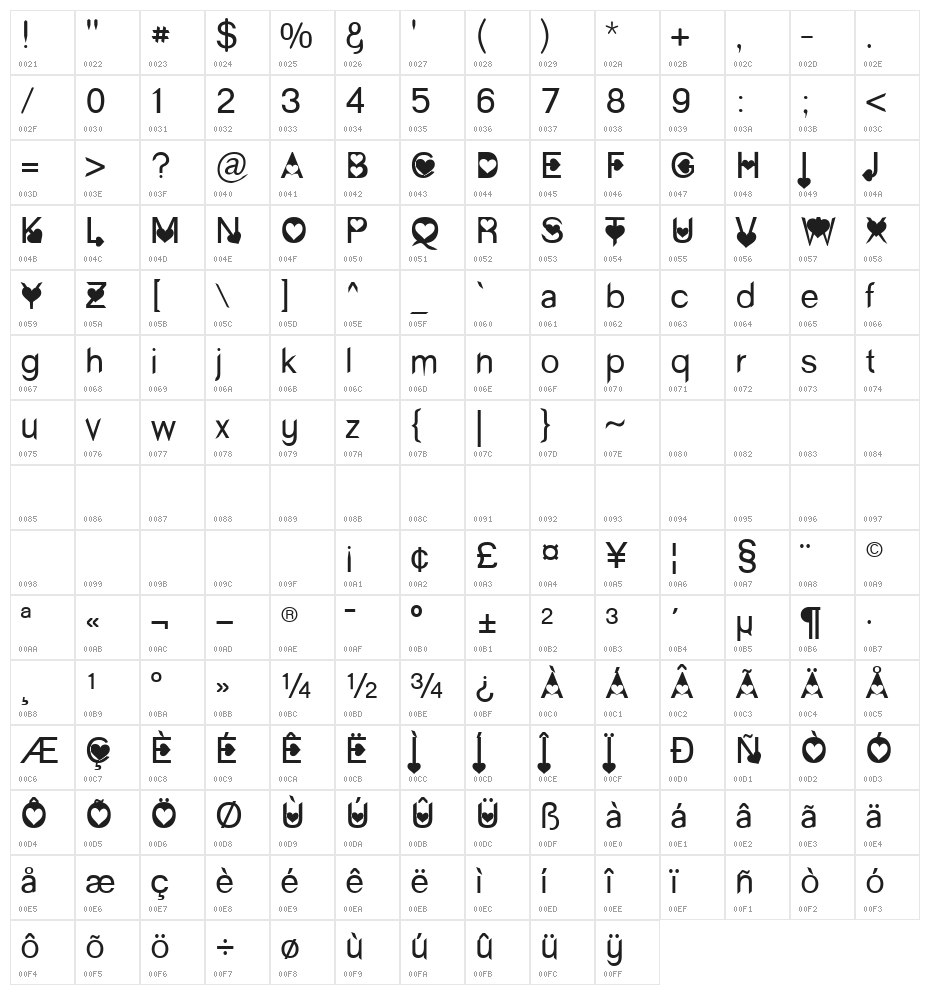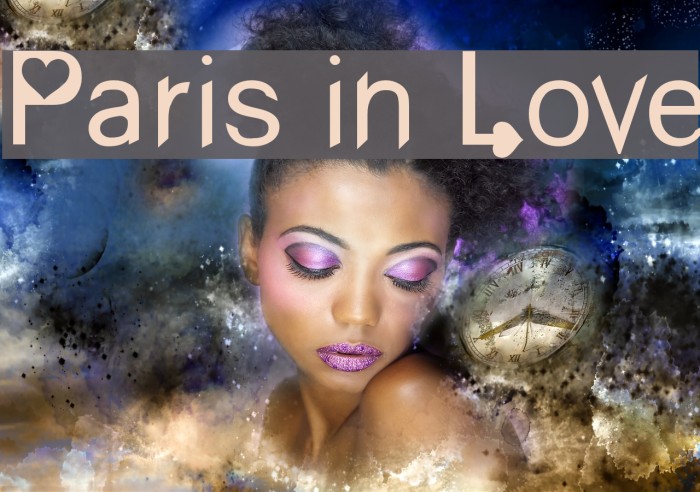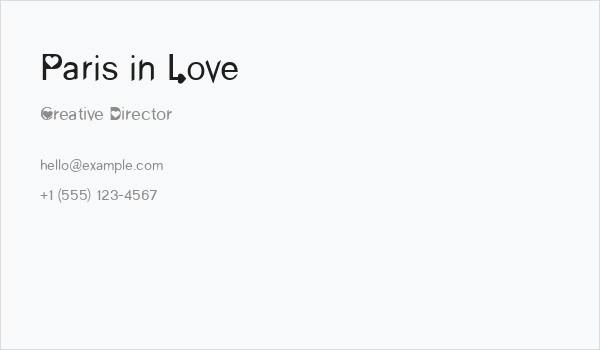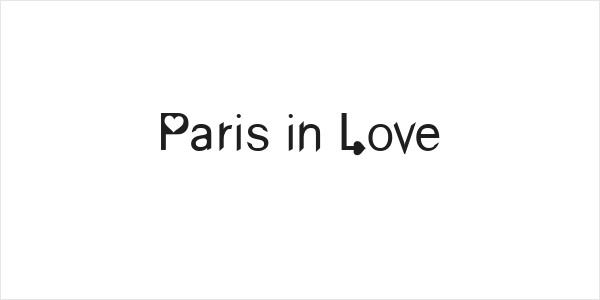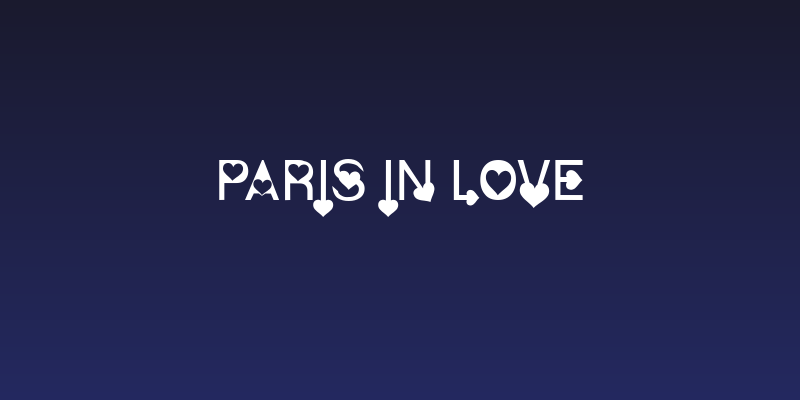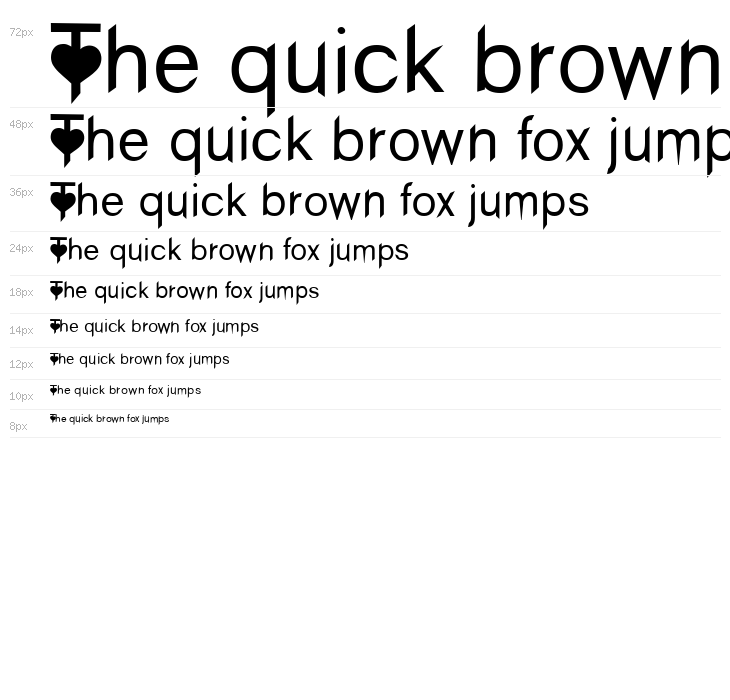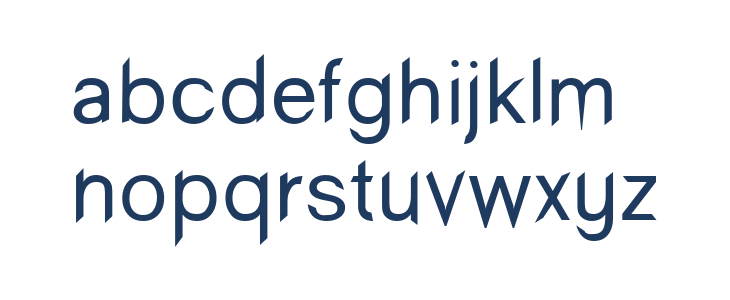
Paris in Love Font
Paris in Love Description
This playful and romantic font features heart-shaped cutouts within the letters, adding a whimsical and affectionate touch to the design. The uppercase letters are particularly distinctive with these heart motifs, making them ideal for projects that aim to convey love or celebration. The lowercase letters maintain a clean and modern sans-serif style, ensuring readability while complementing the decorative uppercase. The numerals and special characters are straightforward, maintaining the overall aesthetic without additional embellishments. This font is perfect for Valentine's Day cards, wedding invitations, or any project that seeks to evoke a sense of romance and joy.
| Proposed Projects | Valentine's Day cards, wedding invitations, love-themed posters, romantic event branding. |